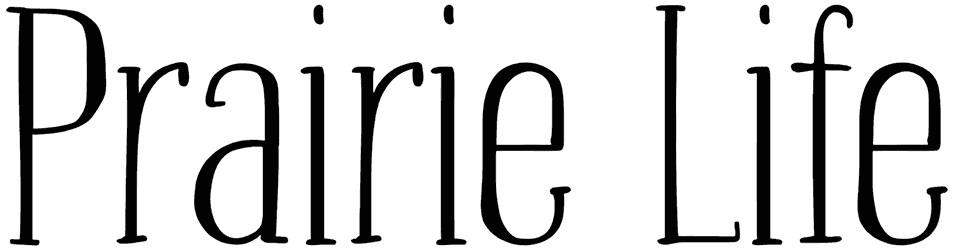
Prairie Life Font
This serif font is great for use in casual projects such as ads, textbooks, packaging, and others because the writing and ornamentation in it are neat and tall. Installing Prairie Life as soon as possible will produce an output that is likable, fascinating, and captivating; therefore, you should give this serif font a try. If a designer wants to inject some levity into their undertaking, they should check out the fonts at the RB as a good place to begin.